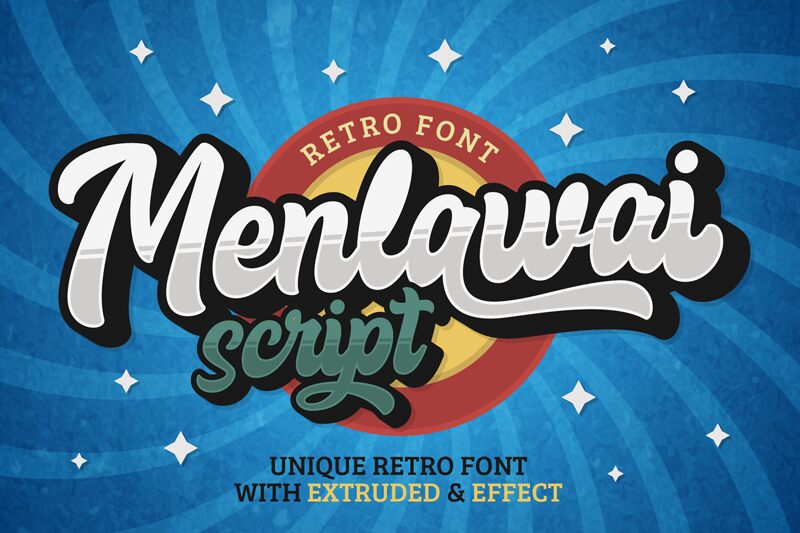
Menlawai, the retro brush font designed by Ahwe Project, will transport you straight back to the 70s. Its bold weight and handcrafted style make it perfect for vintage logos, branding projects, and advertising materials. This versatile typeface is also suitable for a range of other creative projects such as posters, packaging design, t-shirts, and album covers. Menlawai's unique character will bring a touch of nostalgia to any design project while still feeling fresh and modern. With its striking appearance, Menlawai is a must-have addition to any designer or marketer's toolkit.